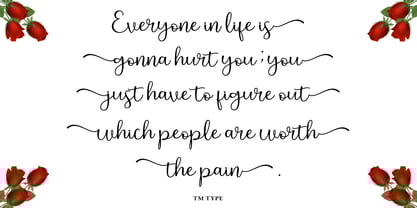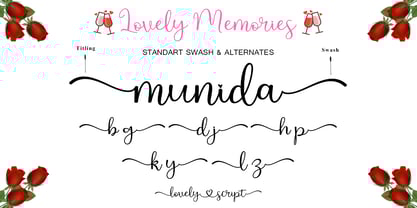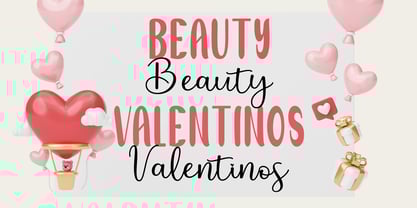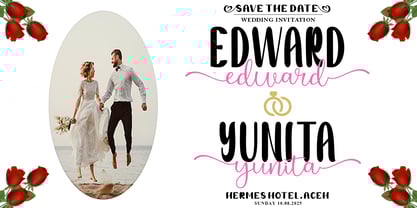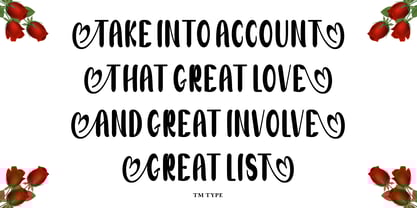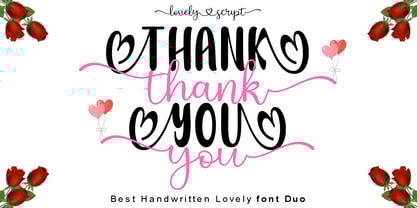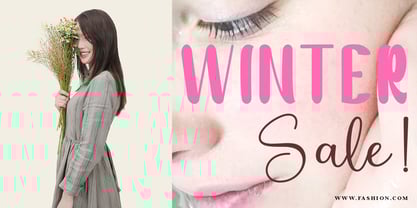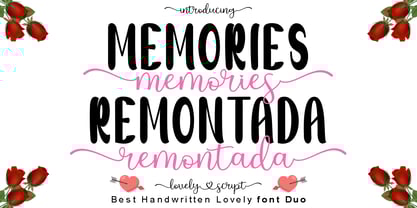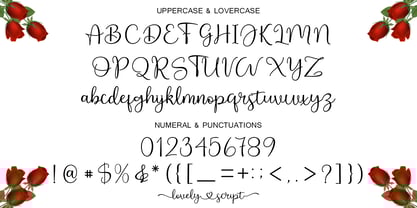
Memories Remontada
by TM Type
The Memories Remontada Font Family was designed by Teuku Bustami and published by TM Type. Memories Remontada contains 2 styles.
This design features a cheerful and romantic font duo called "Memories Remontada Script" and "Memories Remontada Beautiful." The main font combines large, bold sans-serif typefaces with a soft touch, accented with delicate cursive flourishes and heart shapes, giving it a charming and unique look. The script font features elegant, flowing handwritten-style letters, further enhancing the romantic and refined aesthetic. Together, these fonts create a harmonious and visually appealing look, perfect for projects related to weddings, invitations, love themes, or feminine branding. The overall design is warm and approachable, with a modern yet timeless appeal.
Designers: Teuku Bustami
Publisher: TM Type
Foundry: TM Type